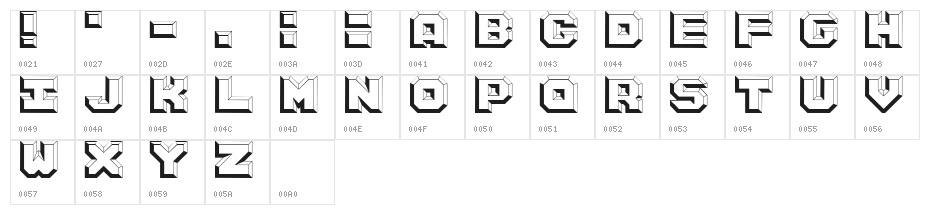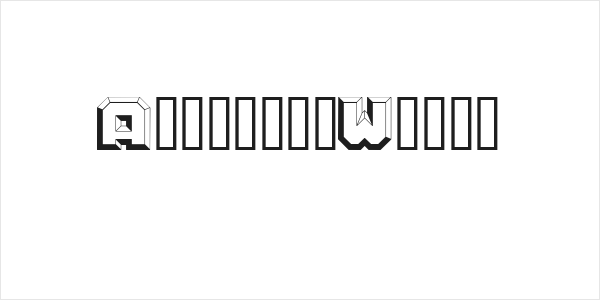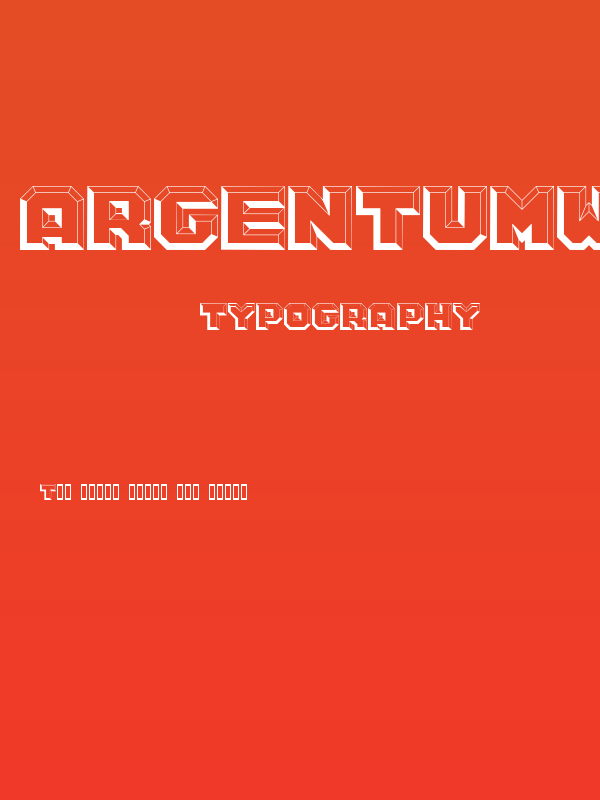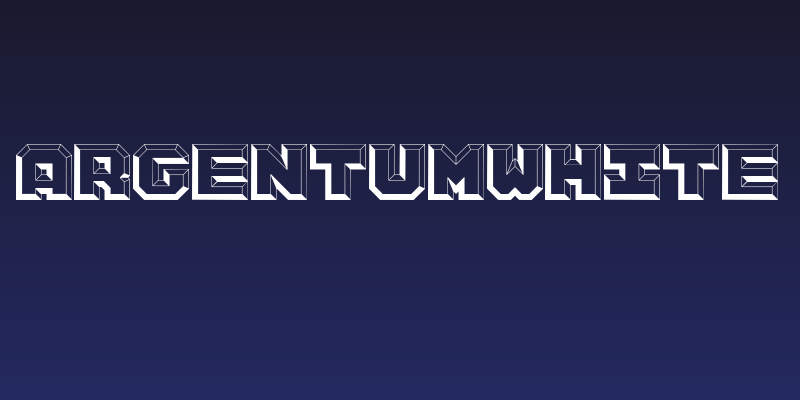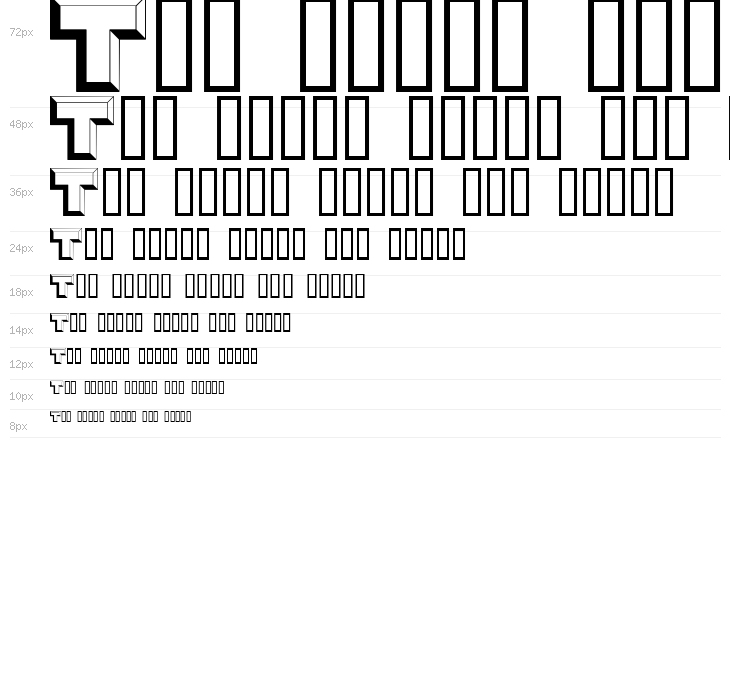
ArgentumWhite Font
ArgentumWhite Description
This font features a bold, three-dimensional design with a strong, geometric structure. Each character is outlined with a thick black border, creating a striking contrast against the white interior. The letters are blocky and angular, giving them a modern and industrial feel. The 3D effect is achieved through shading and perspective, making the characters appear as if they are raised off the page. This style is particularly eye-catching and would be suitable for projects that require a bold statement. The uppercase letters are uniform in height and width, maintaining a consistent appearance across the alphabet.
| Proposed Projects | Ideal for posters, logos, headlines, and any design needing a bold, impactful typeface. |